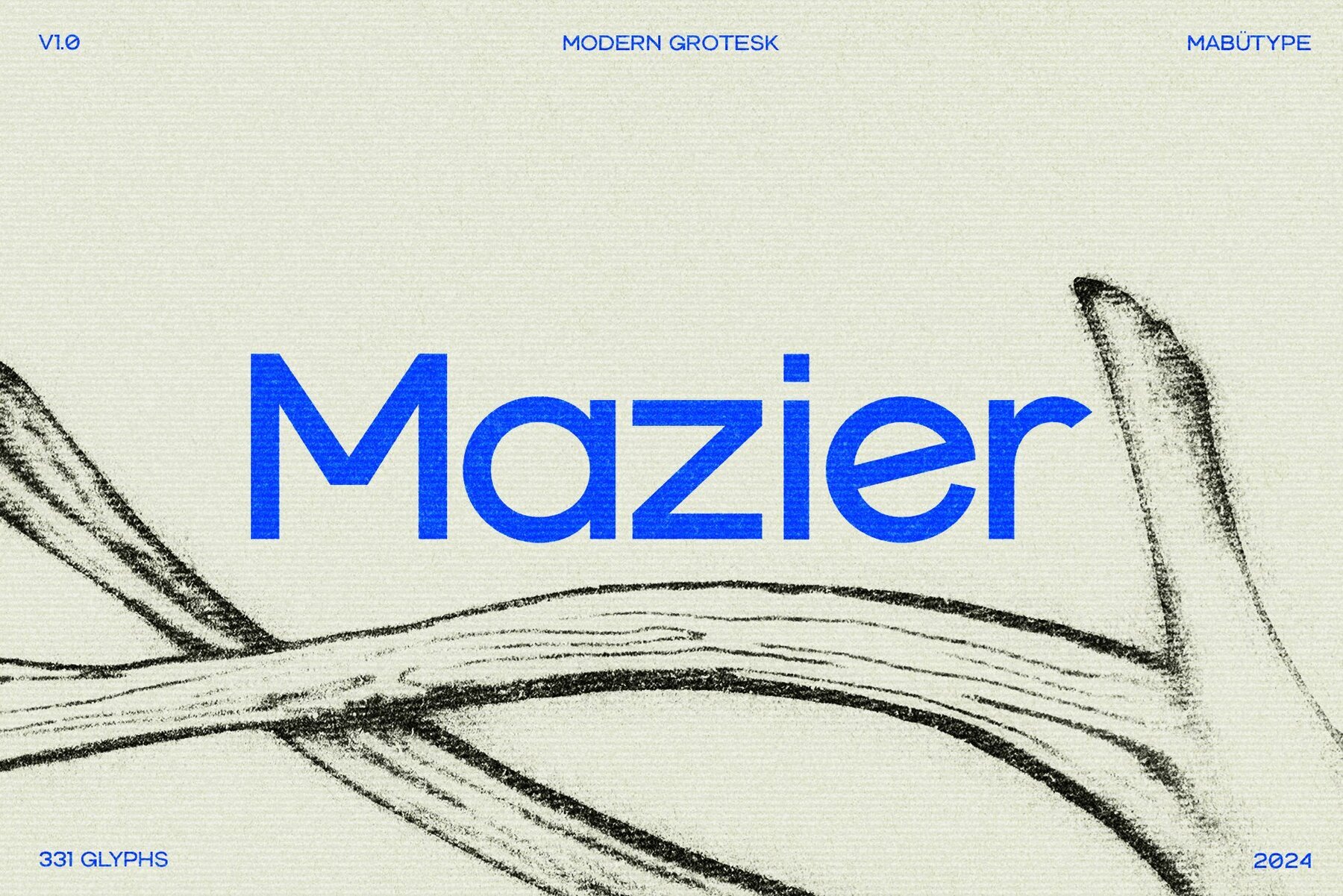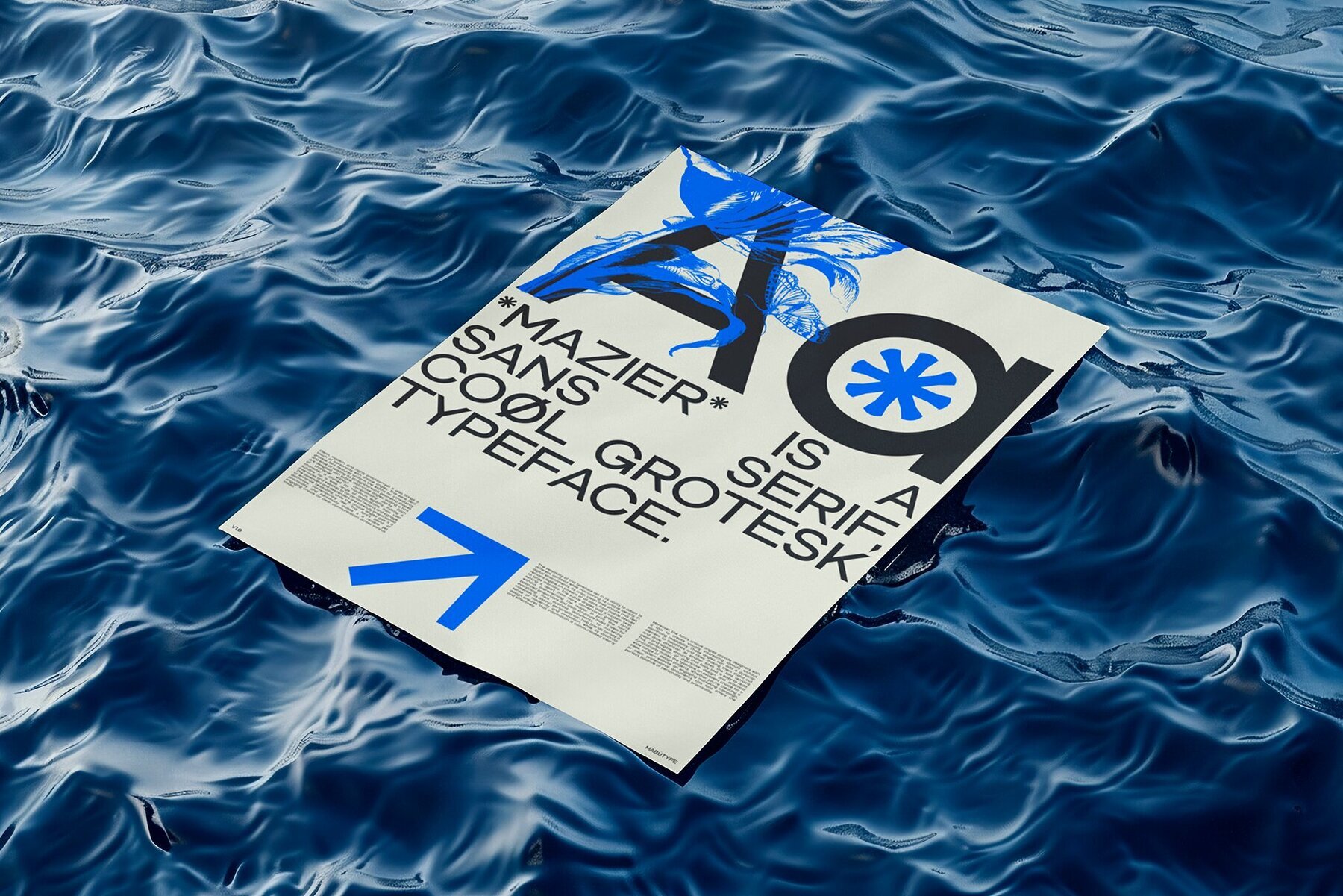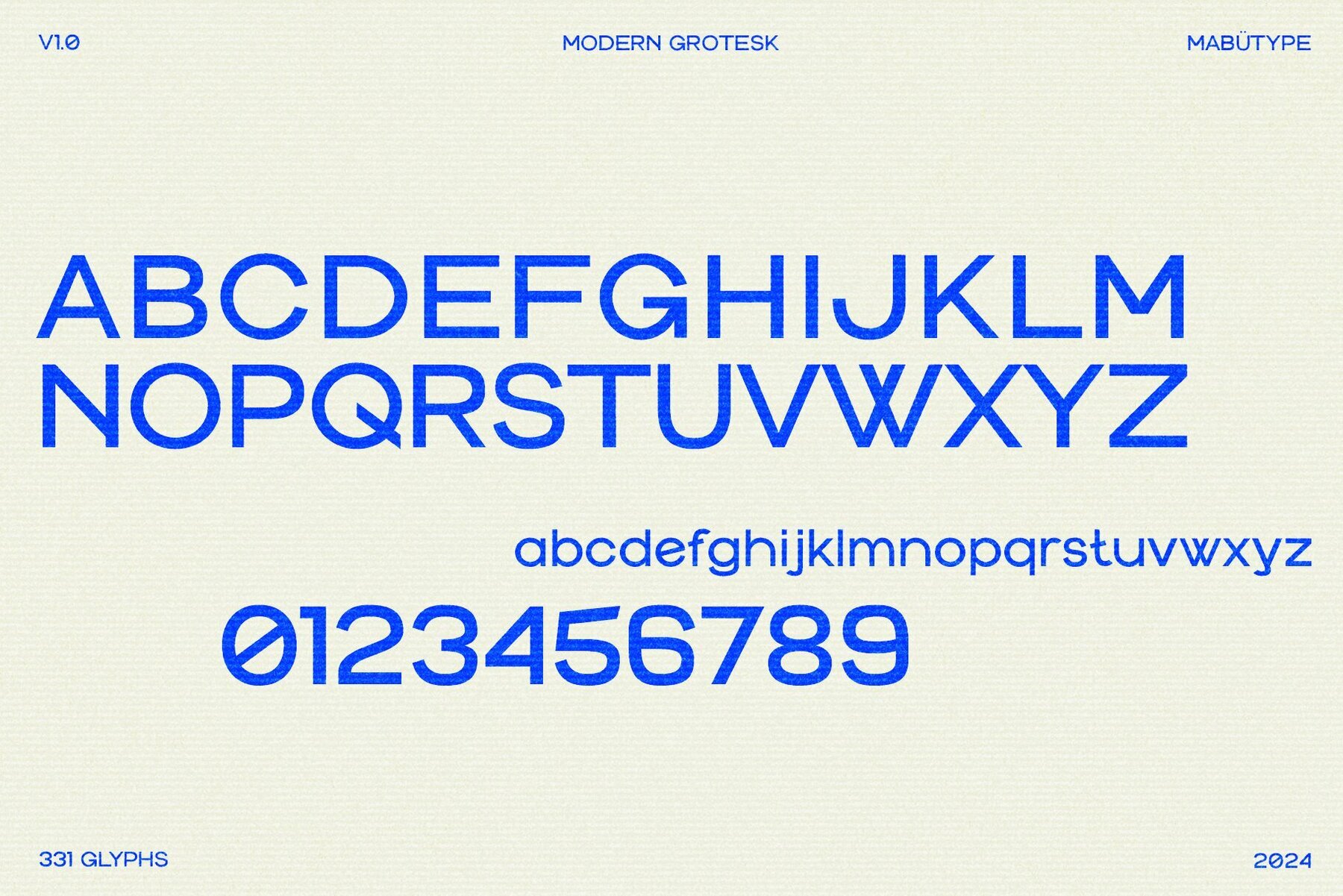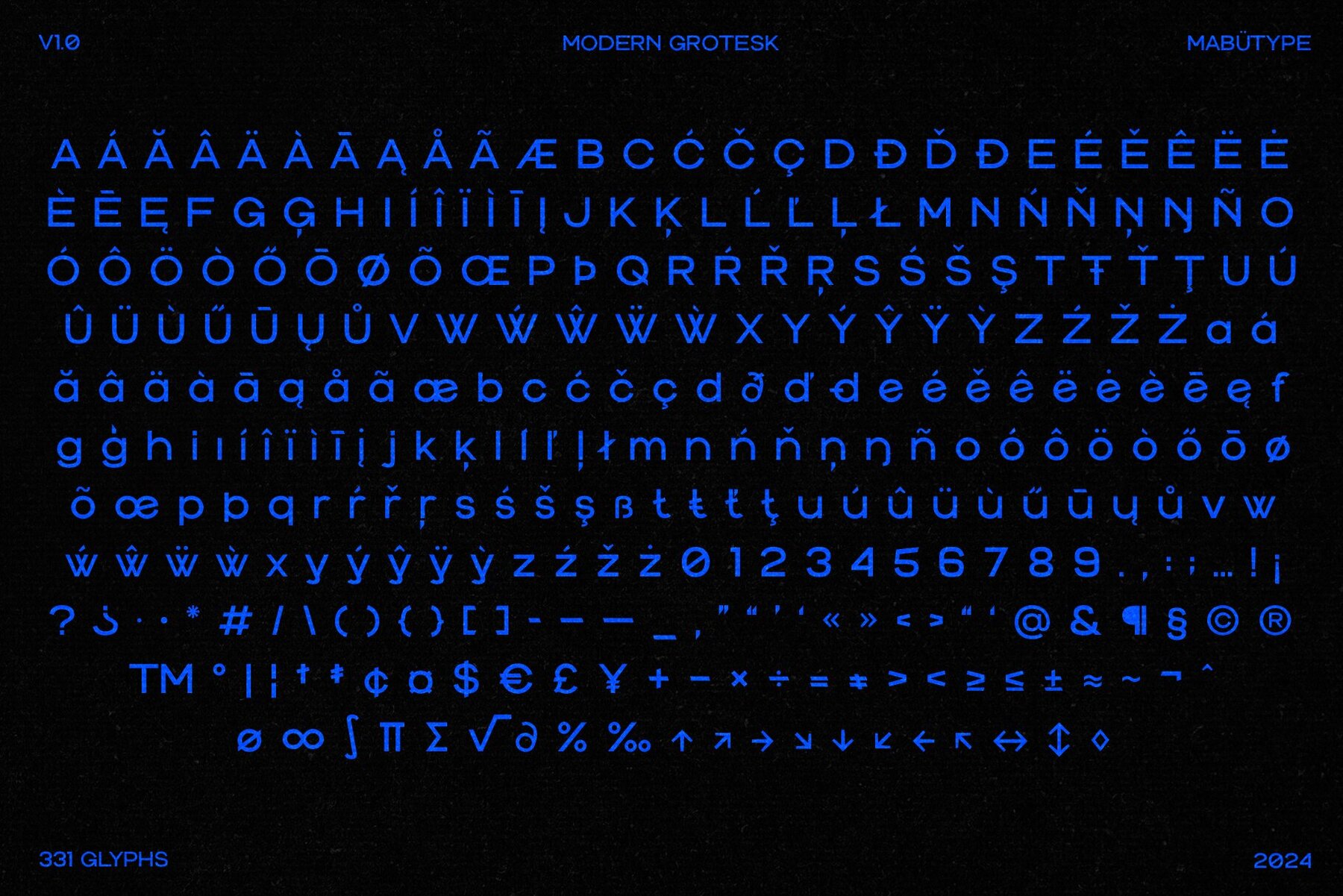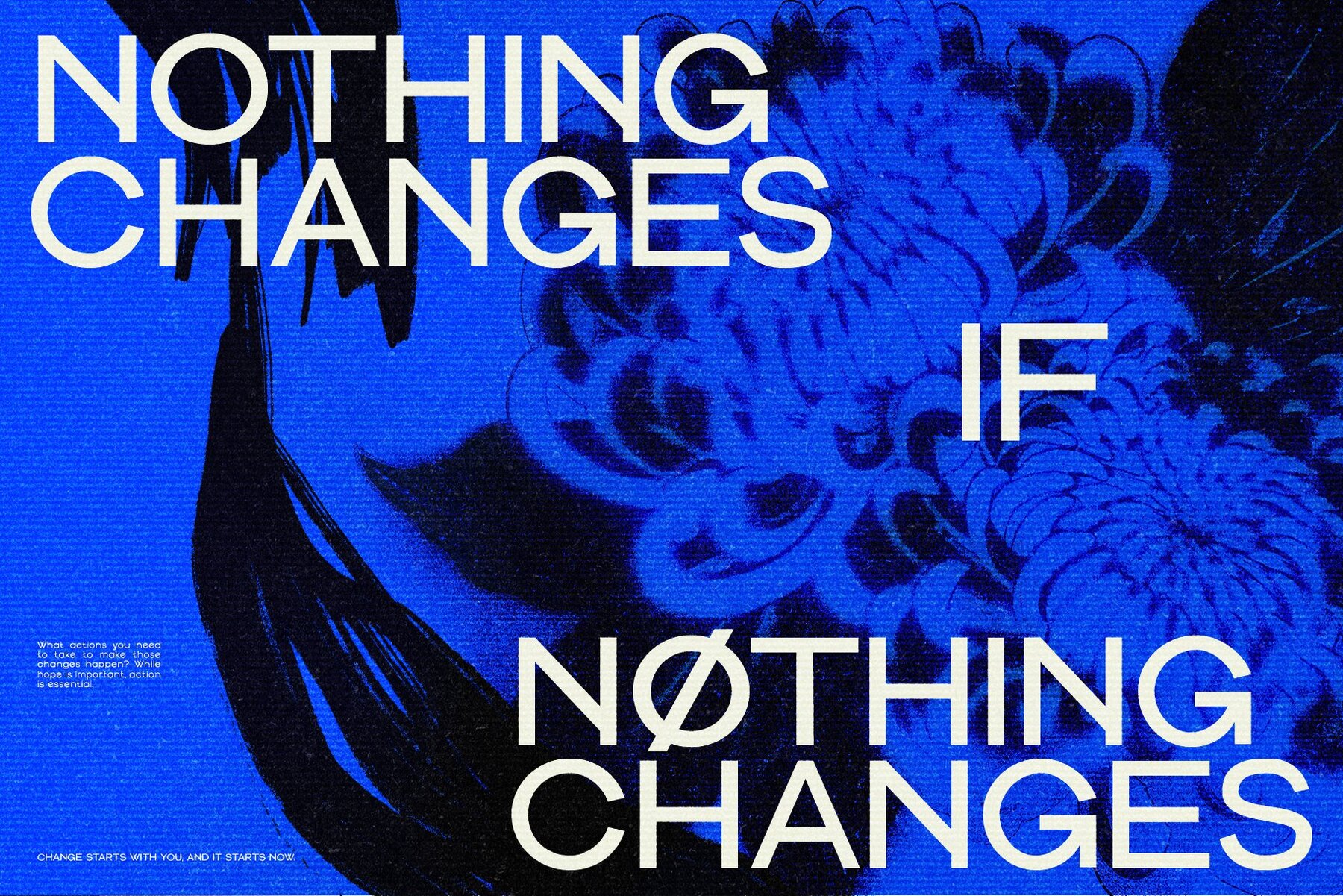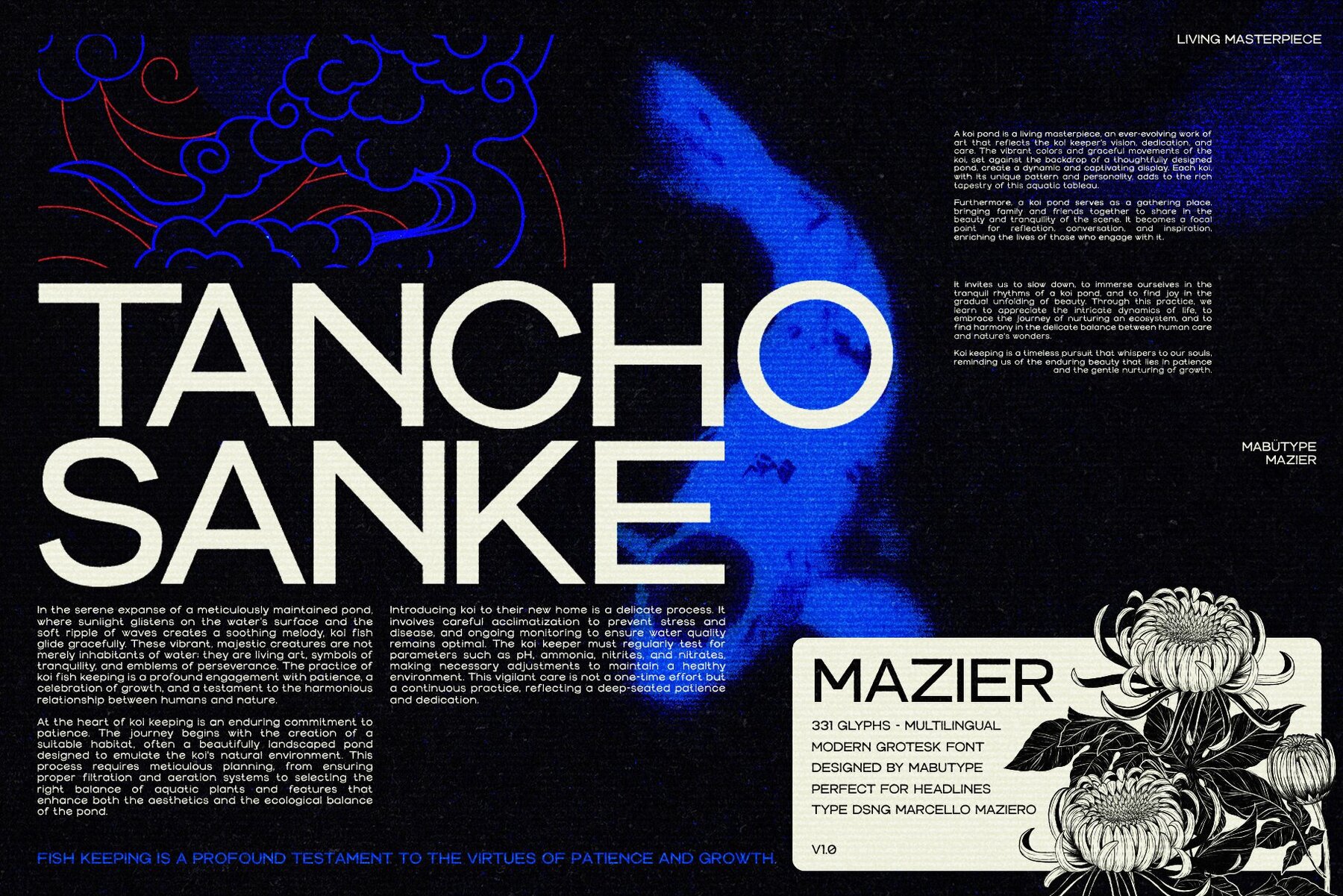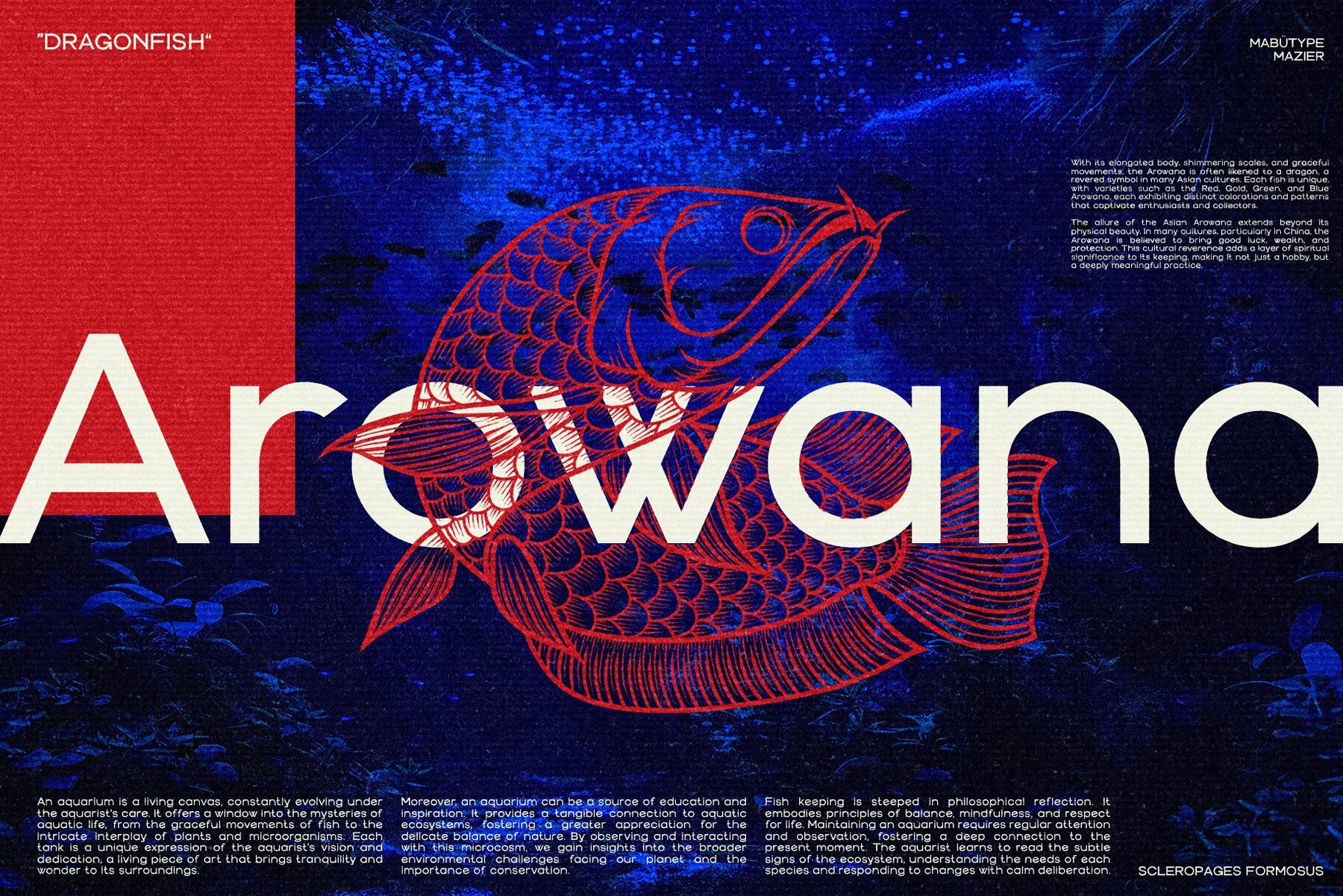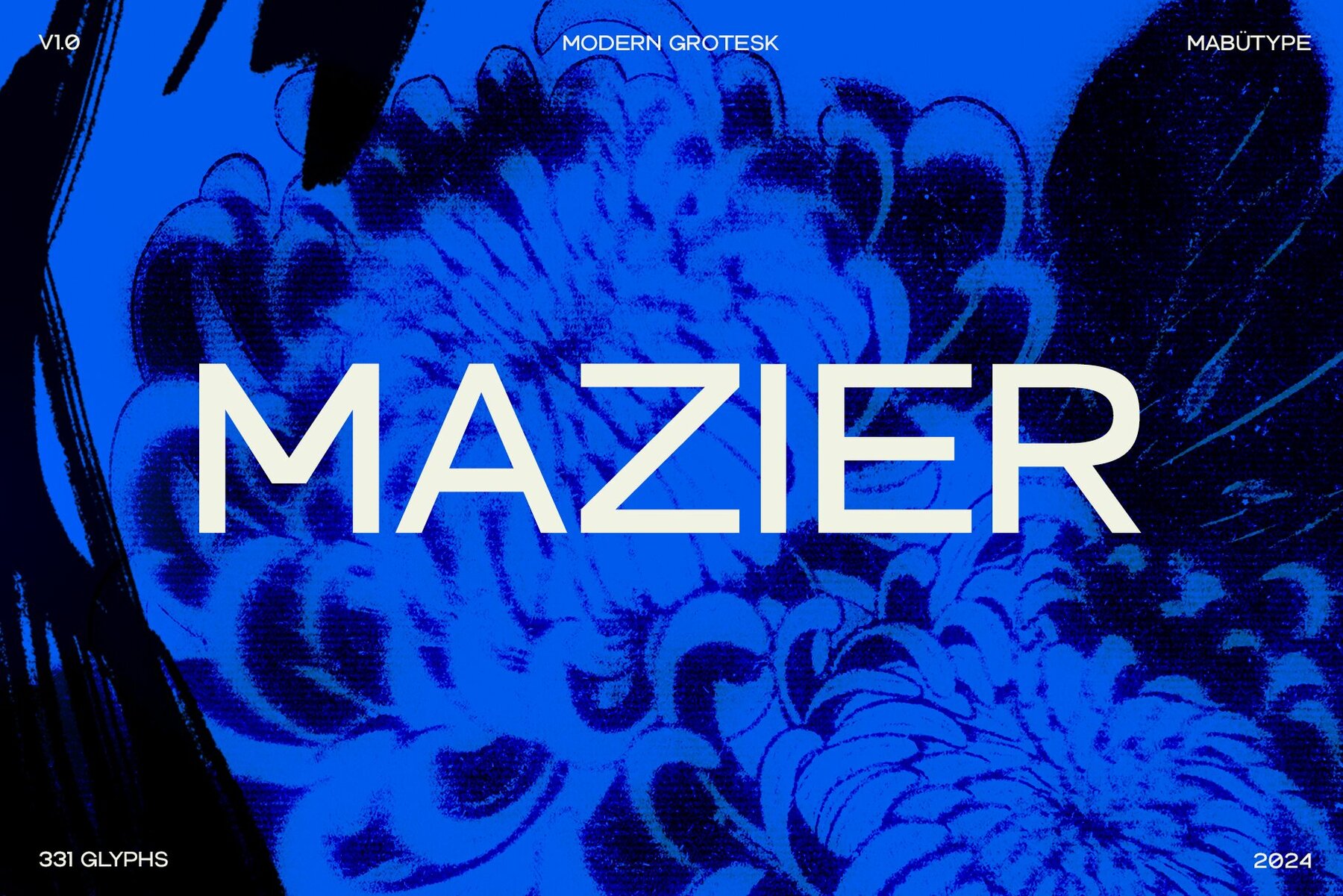
Mazier Font
Mazier Regular
Mazier is a striking sans-serif grotesk typeface that brings a modern edge to your design projects. Featuring over 300 glyphs, this font supports multiple languages, making it versatile for diverse applications. Its unique angles and distinctive character add an element of personality, perfect for branding, web design, and print materials.
Ideal for both headlines and body text, Mazier’s clean lines ensure readability while offering a contemporary aesthetic. Perfectly suited for designers who want to inject creativity and professionalism into their work, this typeface stands out in any project.